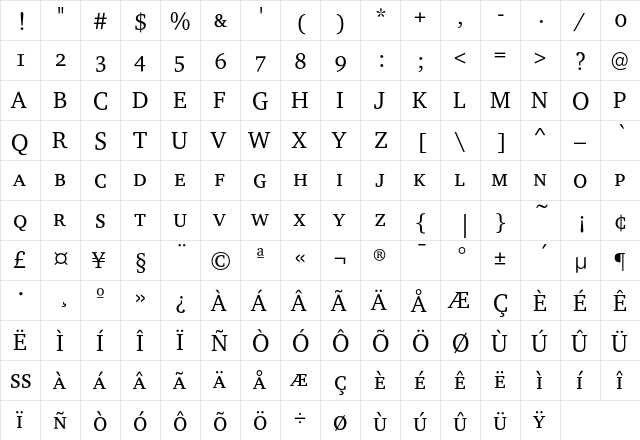
CharterEF RegularSC Font Preview
CharterEF RegularSC
Design Context for CharterEF Typeface
CharterEF is a composed and adaptable typeface that performs quietly and consistently across a wide range of design contexts.